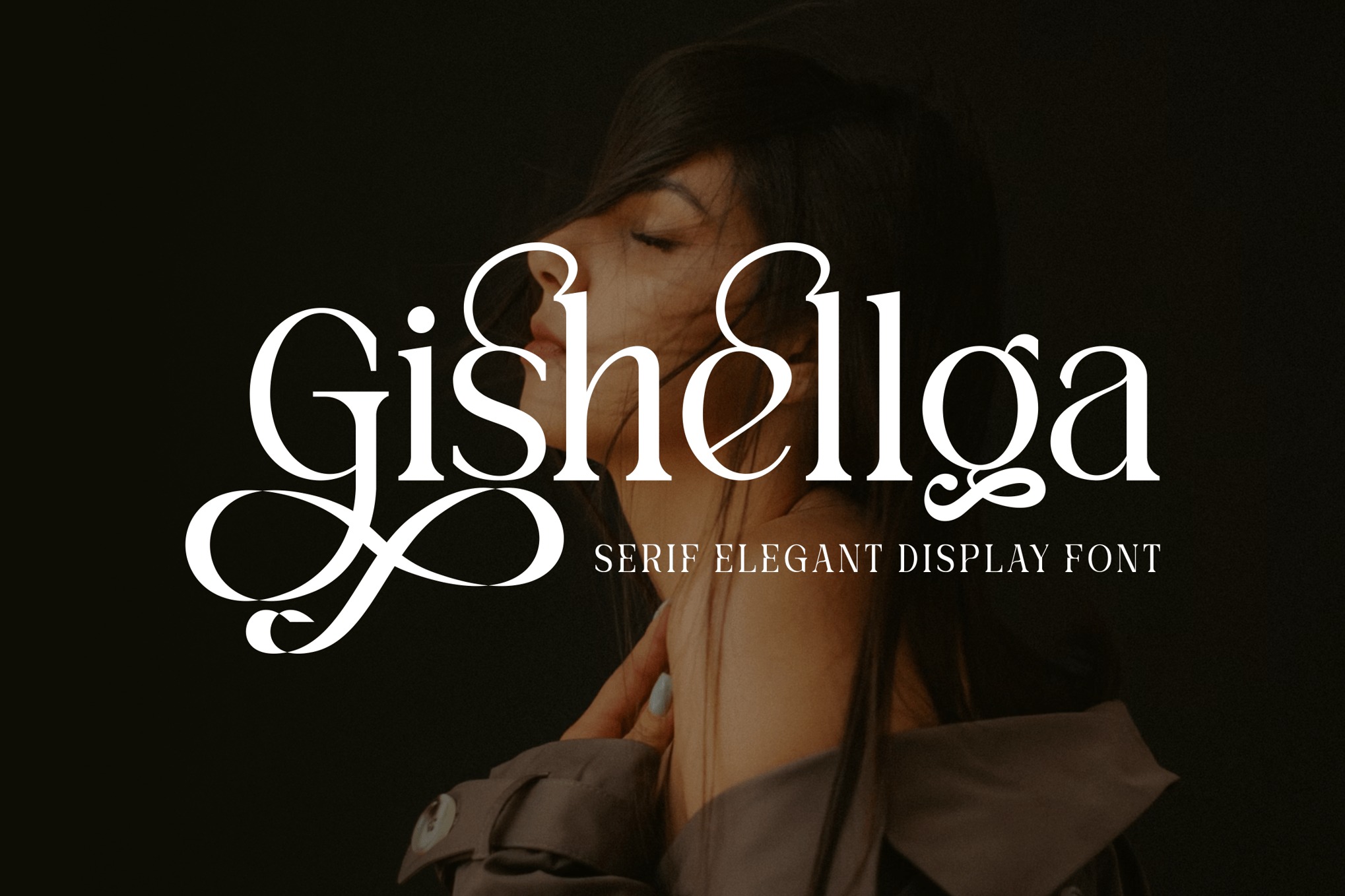
Gishellga Font
Gishellga Font is a clean and thoughtfully built typeface that works seamlessly for both professional branding and everyday creative uses. Gishellga is a unique font. Can make it easier to convey the message in your design. Use for awesome display, labeling, movie sceen, poster, movie title, gigs, album covers, logos, and much more.